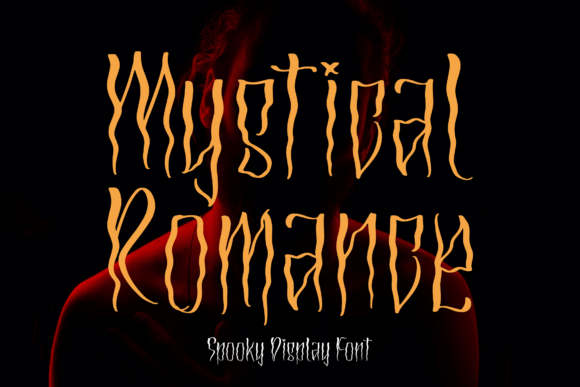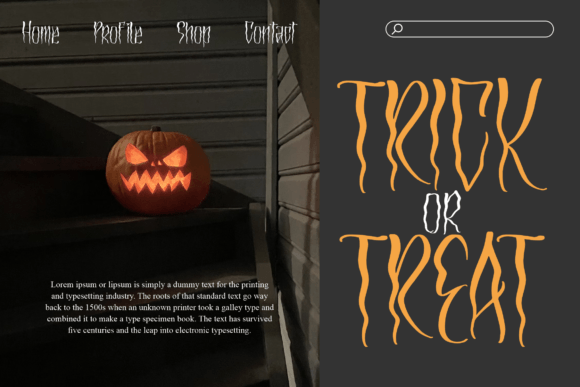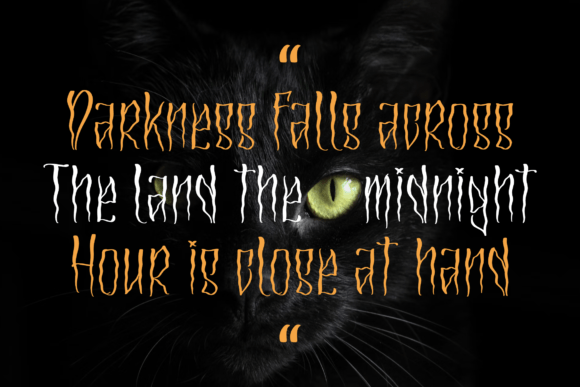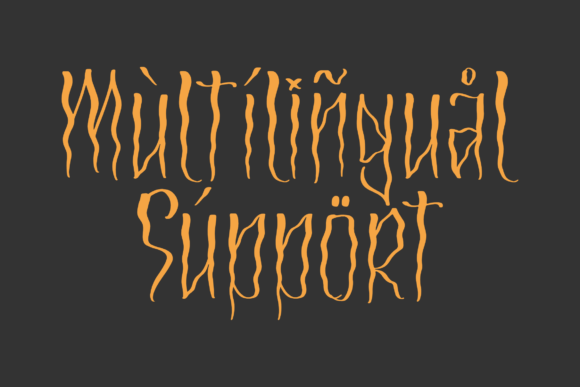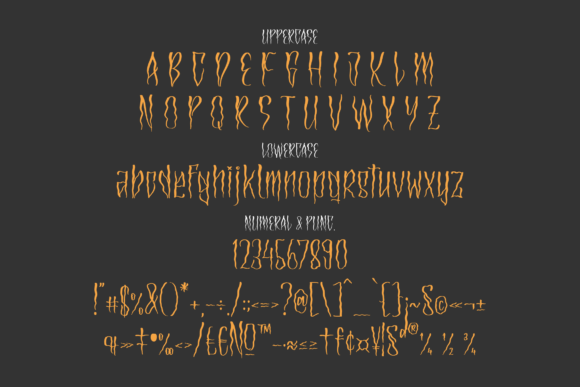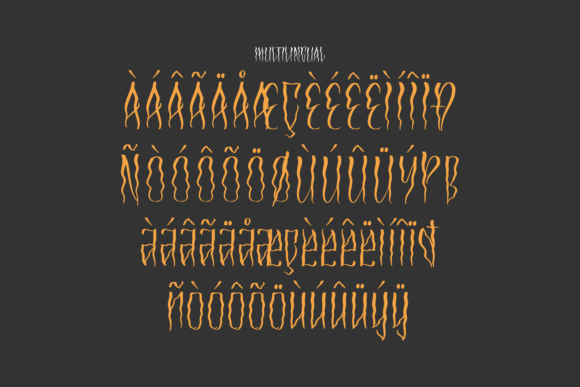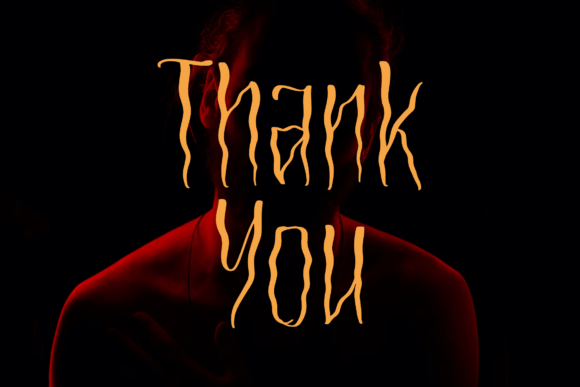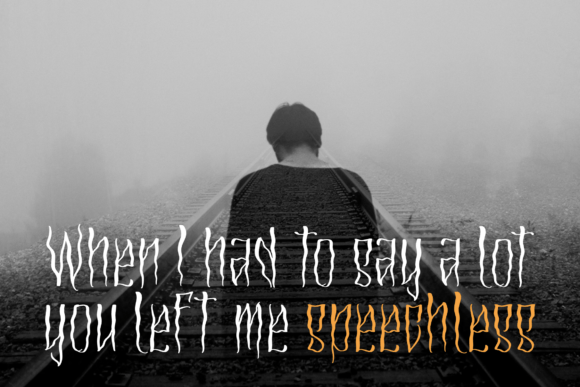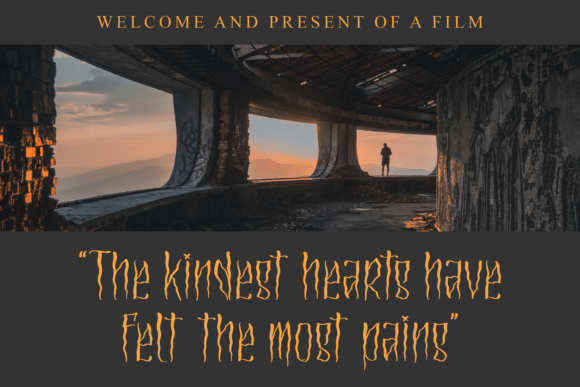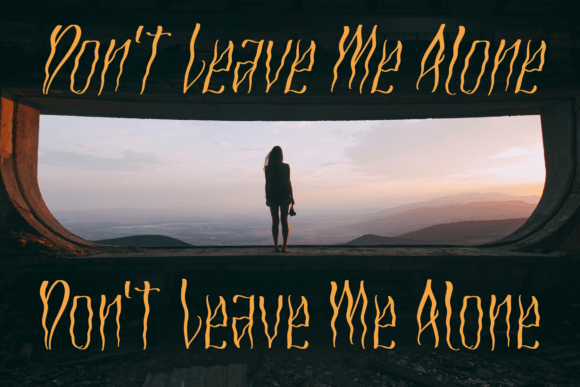
Mystical Romance Font
Mystical Romance Font Download – Spooky Handwritten Script
The Mystical Romance Font download is a spooky handwritten typeface designed to bring eerie charm and personality to your creative projects. With its shaky strokes and hauntingly stylish appeal, this font is perfect for Halloween, dark-themed branding, and special event designs. Whether for digital or print use, it adds a mysterious flair that makes your work unforgettable.
A Shaky and Spooky Handwritten Look
The Mystical Romance Font download combines authentic handwritten elements with a slightly shaky style, creating a unique spooky effect. Each character is carefully crafted to maintain readability while delivering a chilling yet stylish vibe. This makes it an excellent choice for designs that require both creativity and atmosphere.
Perfect for Halloween and Spooky Designs
If you’re preparing seasonal projects, the Mystical Romance Font download is a must-have. It works beautifully for Halloween posters, trick-or-treat bags, spooky greeting cards, party invitations, and themed apparel. Its ghostly yet elegant strokes set the right mood for eerie but fun designs.
Versatile Across Creative Projects
Beyond Halloween, this font can be applied to a wide range of projects. The Mystical Romance Font download adapts seamlessly to logos, branding, mugs, book covers, product packaging, and even social media graphics. Its flexibility makes it an excellent choice for both professional designers and DIY enthusiasts.
Why Choose Mystical Romance Font?
Among the many spooky fonts available, the Mystical RomanceFont download stands out because of its unique balance between creepiness and elegance. It delivers a strong personality without sacrificing clarity, ensuring your text remains both striking and easy to read.
Add Spooky Elegance to Your Work
Typography shapes the mood of your design, and the Mystical RomanceFont download provides the perfect blend of spooky and stylish. Whether you are designing for Halloween, branding, or personal creative projects, this font ensures your work communicates mystery, creativity, and flair.